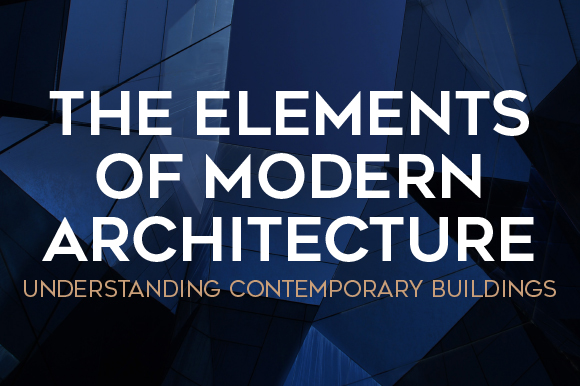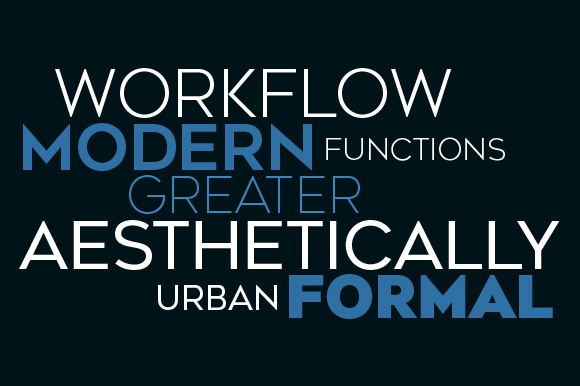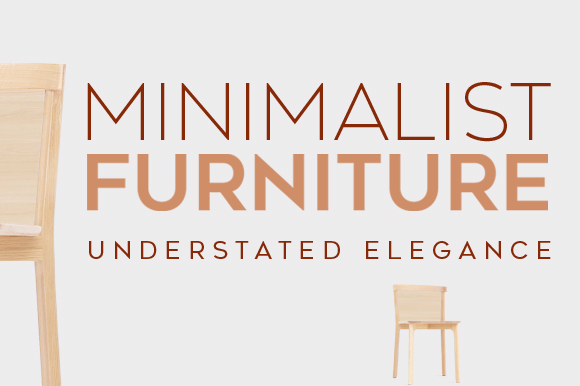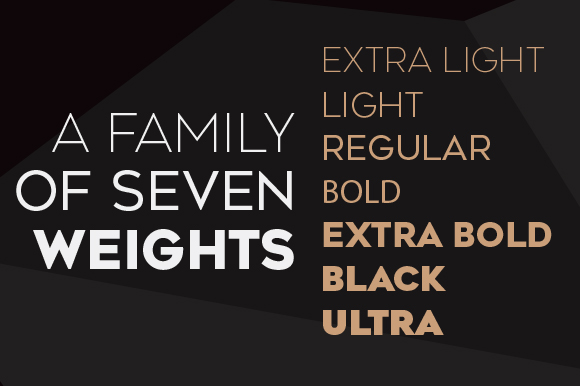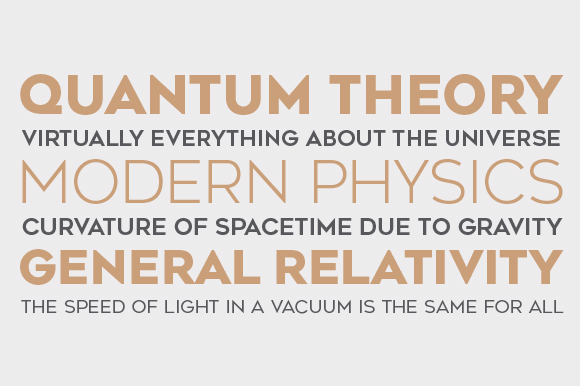
Introduction to Geometos Neue Font
Geometos Neue is a geometric sans-serif typeface which comes in seven weights.
An all caps display font family, Geometos Neue has a clean, sharp and emphatic form especially suitable for headlines, headings, branding, posters, packaging, titles and logos .